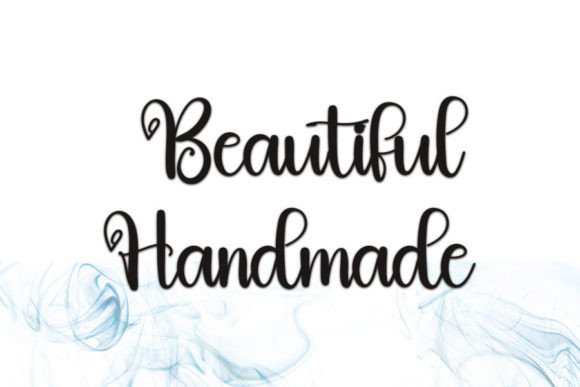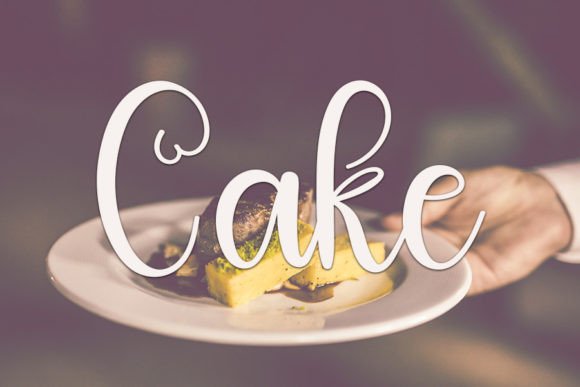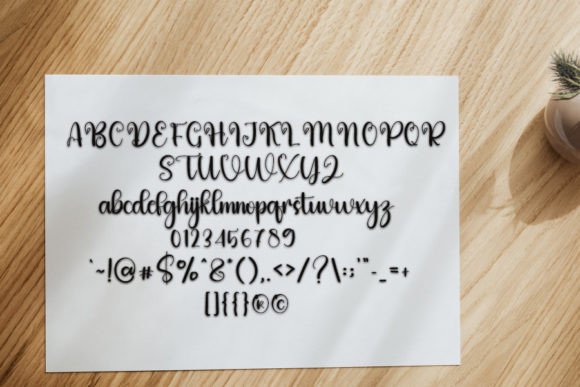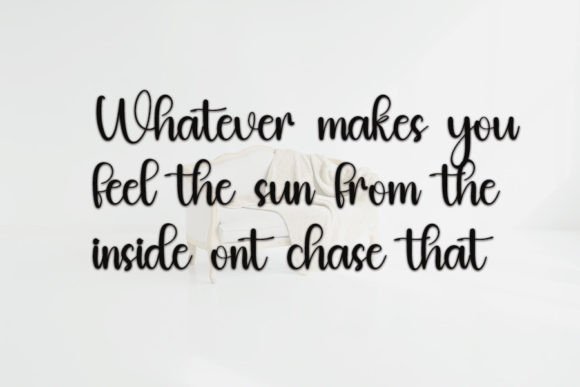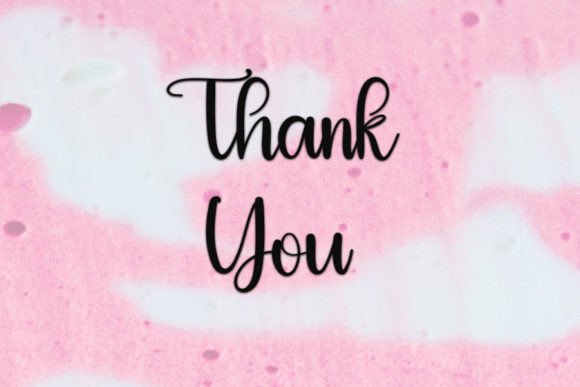
Cake Font: The Sweetest Addition to Your Design Projects
Are you looking for a font that adds a touch of elegance and whimsy to your design projects? Look no further than Cake Font, a beautiful handmade display font that is sure to make your creations stand out. With its lovely details and versatility, Cake Font is perfect for a wide range of applications, from wedding invitations and branding to cards, magazines, quotes, and banners.
The Charm of Cake Font
Cake Font is a stunning example of a handmade display font, with intricate details that give it a unique and charming character. Its elegant lines and curves make it perfect for designs that require a touch of sophistication and whimsy. Whether you’re creating a wedding invitation, a branding campaign, or a social media graphic, Cake Font is sure to add a touch of magic to your design.
Perfect for Wedding Invitations and Branding
Wedding invitations and branding are two areas where Cake Font truly shines. Its elegant and sophisticated design makes it perfect for wedding invitations, where you want to make a great first impression. The font’s lovely details and whimsical touch also make it ideal for branding campaigns, where you want to create a memorable and lasting impression.
Versatile and Easy to Use
One of the best things about Cake Font is its versatility. It’s easy to use and can be applied to a wide range of design projects, from cards and magazines to quotes and banners. Whether you’re a professional designer or a crafty DIY enthusiast, Cake Font is easy to incorporate into your designs, and its flexibility ensures that it will work perfectly with your existing design elements.
Make Your Designs Stand Out with Cake Font
So why choose Cake Font for your design projects? The answer is simple: Cake Font makes your designs stand out! Its unique and charming character adds a touch of elegance and whimsy to any design, making it perfect for designers and crafters who want to create something truly special. Whether you’re creating a wedding invitation, a branding campaign, or a social media graphic, Cake Font is sure to make your design shine.
Design Ideas with Cake Font
Here are some design ideas where Cake Font can be used:
- Wedding invitations and save-the-date cards
- Branding campaigns and logos
- Cards and stationery
- Magazines and editorials
- Quotes and posters
- Banners and signage
Tips for Using Cake Font
Here are some tips for using Cake Font in your design projects:
- Use Cake Font as a headline font to add a touch of elegance and whimsy to your design
- Pair Cake Font with a simpler font for body text to create a beautiful contrast
- Use Cake Font to create a custom logo or branding element
In conclusion, Cake Font is a beautiful and versatile handmade display font that is perfect for a wide range of design projects. Its lovely details and whimsical touch make it ideal for wedding invitations, branding, cards, magazines, quotes, and banners. With its ease of use and flexibility, Cake Font is a great addition to any designer’s toolkit. So why not give Cake Font a try and see how it can make your designs stand out?